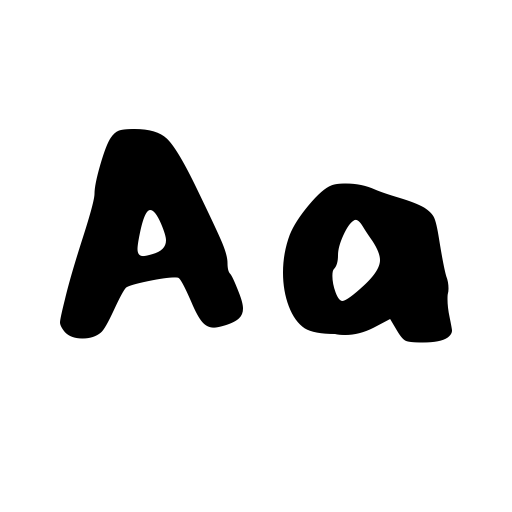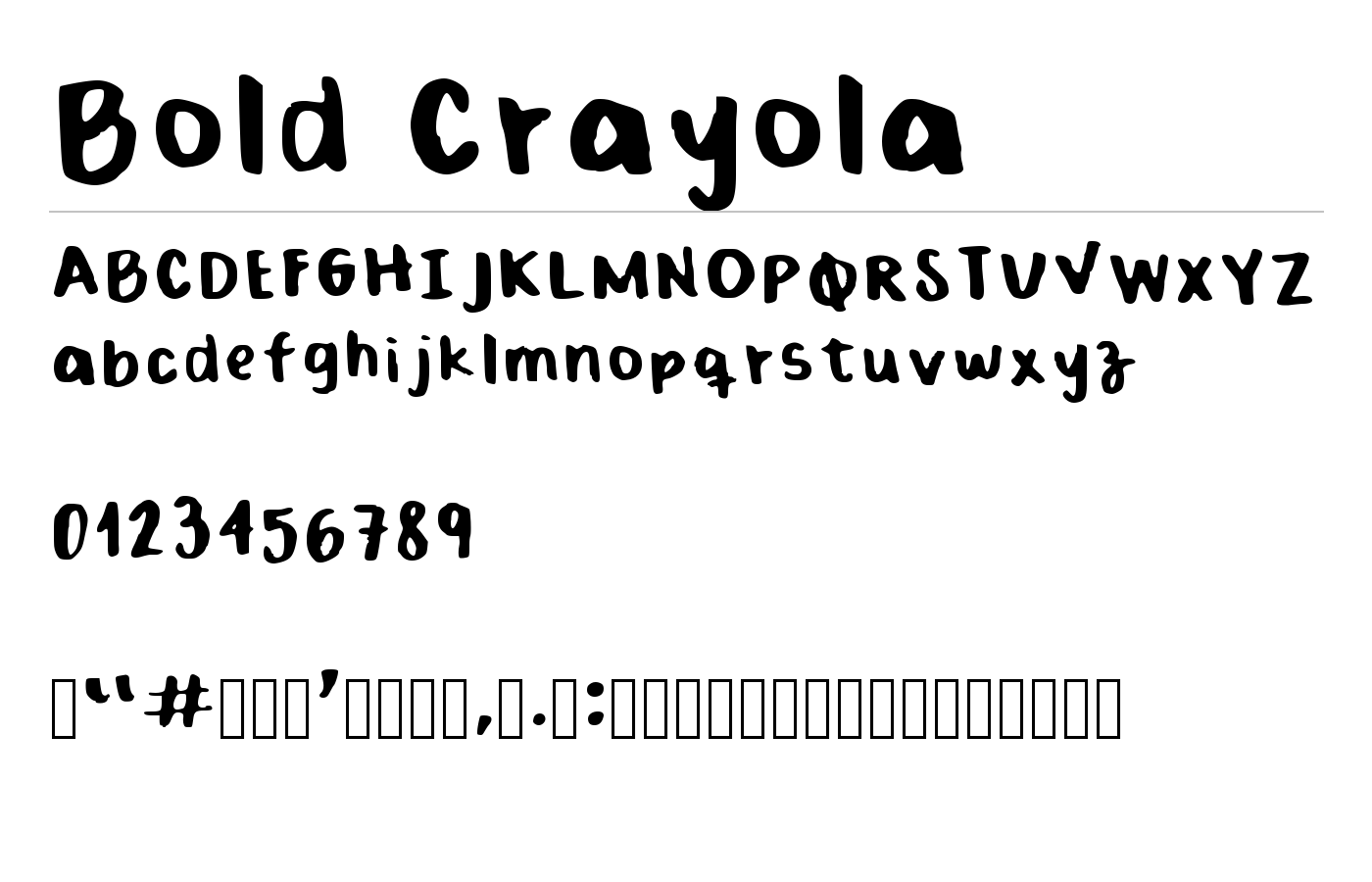
Bold Crayola is a playful, hand-drawn sans serif font with a bold weight and informal style that mimics the texture of crayon strokes. Its uneven forms and quirky letter shapes give it a fun, childlike personality, making it perfect for creative, casual, or youthful branding, posters, and packaging where a friendly and approachable tone is desired. This font works best in headlines or display use, where its unique charm can stand out and add a personal touch.
Bold Crayola Font
About Bold Crayola Font